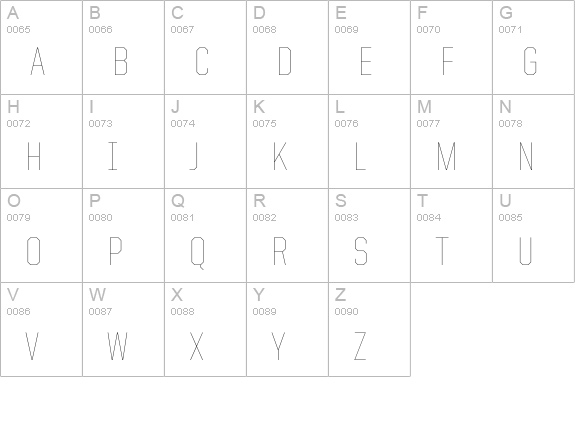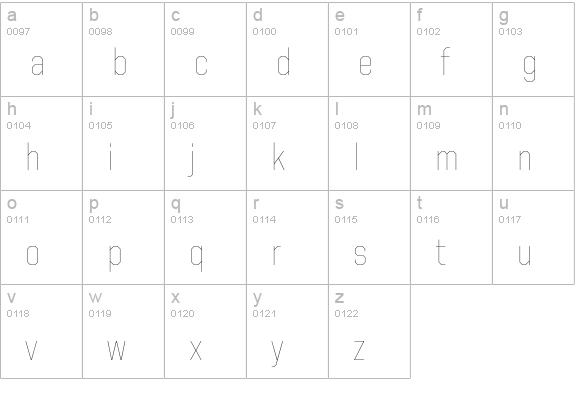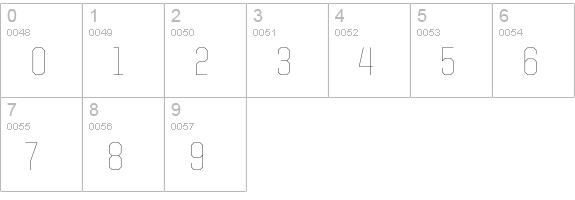
United Sans SemiCond Thin Font Details
United Sans SemiCond Thin is a delicate, low-contrast variant in the United typeface family \xE2\x80\x94 well suited to fashion editorial, minimal branding, and high-contrast display.
United Sans SemiCond Thin is a sleek and modern font that exudes elegance and sophistication. With its thin strokes and condensed letterforms, this typeface is perfect for adding a touch of refinement to any design project. Whether you're creating a logo, a website, or a printed piece, United Sans SemiCond Thin will effortlessly elevate your work to new heights. This font offers a harmonious balance between legibility and style, making it ideal for both body text and headlines. Its clean and minimalist design ensures that your message takes center stage, while still retaining a sense of individuality and flair. The precise and crisp letterforms of United Sans SemiCond Thin lend a professional and polished look to any typography, ensuring that your content is always presented in the best possible light. One of the best things about United Sans SemiCond Thin is that it is free. That's right, you can download this exceptional font at no cost from FontsMarket.com. This means that you can enhance your designs with this high-quality typeface without breaking the bank. Whether you're a professional designer or a hobbyist, having access to a font like United Sans SemiCond Thin can make a world of difference in the impact and effectiveness of your work. So why wait? Take advantage of the opportunity to obtain United Sans SemiCond Thin for free today. With its timeless appeal, versatility, and freely available status, this font is a must-have addition to any designer's toolkit. Download United Sans SemiCond Thin now and unlock a world of design possibilities.